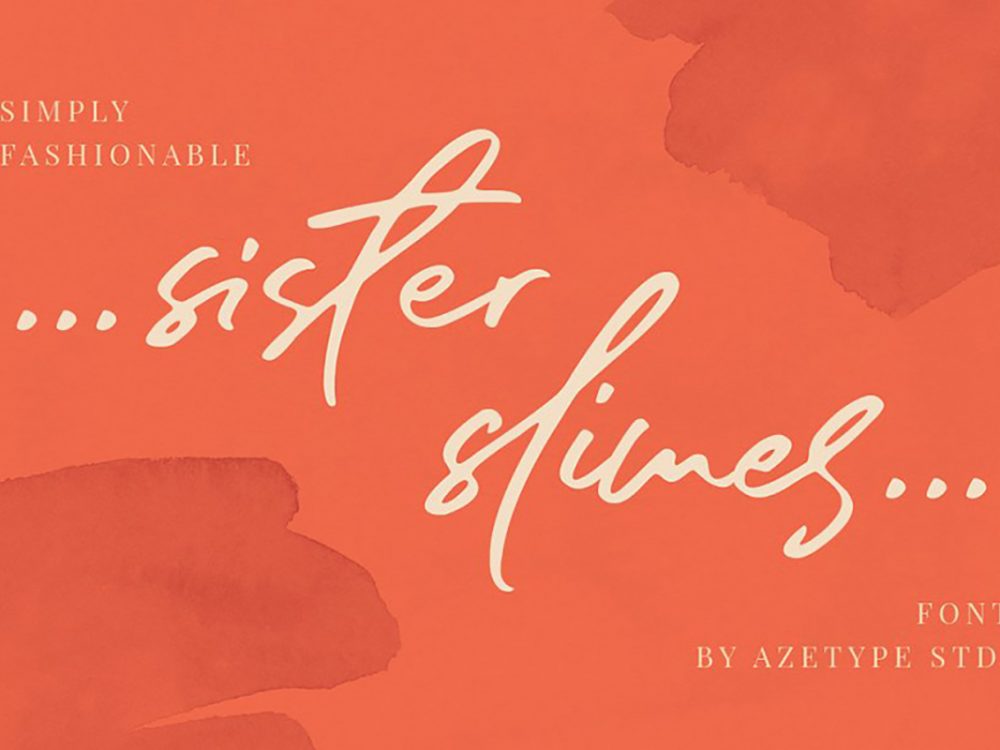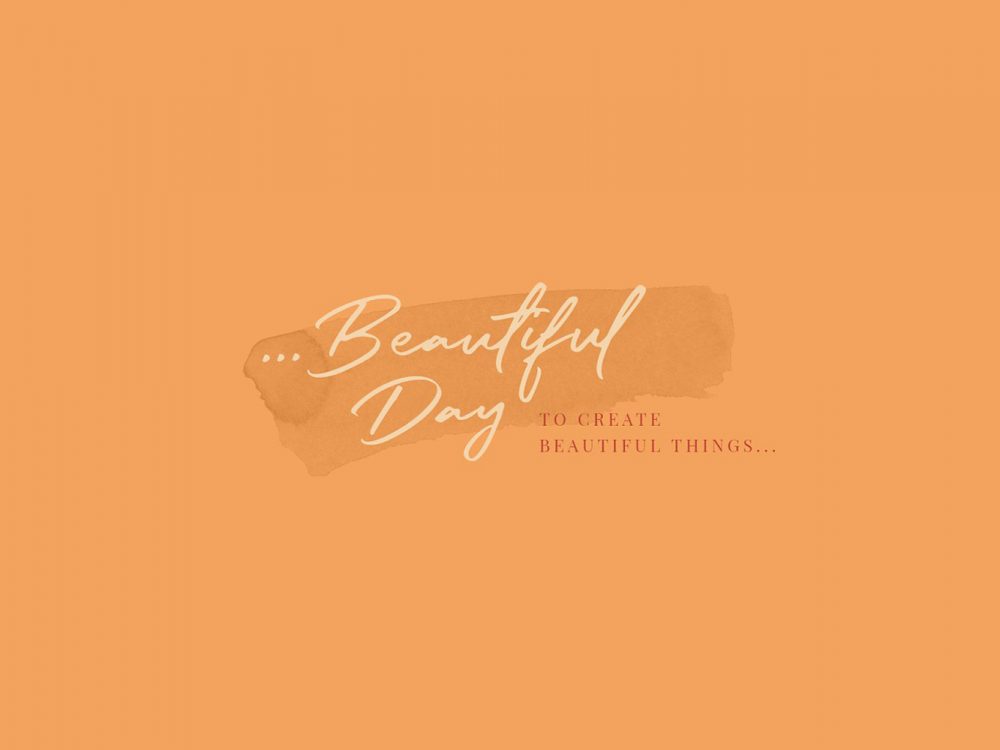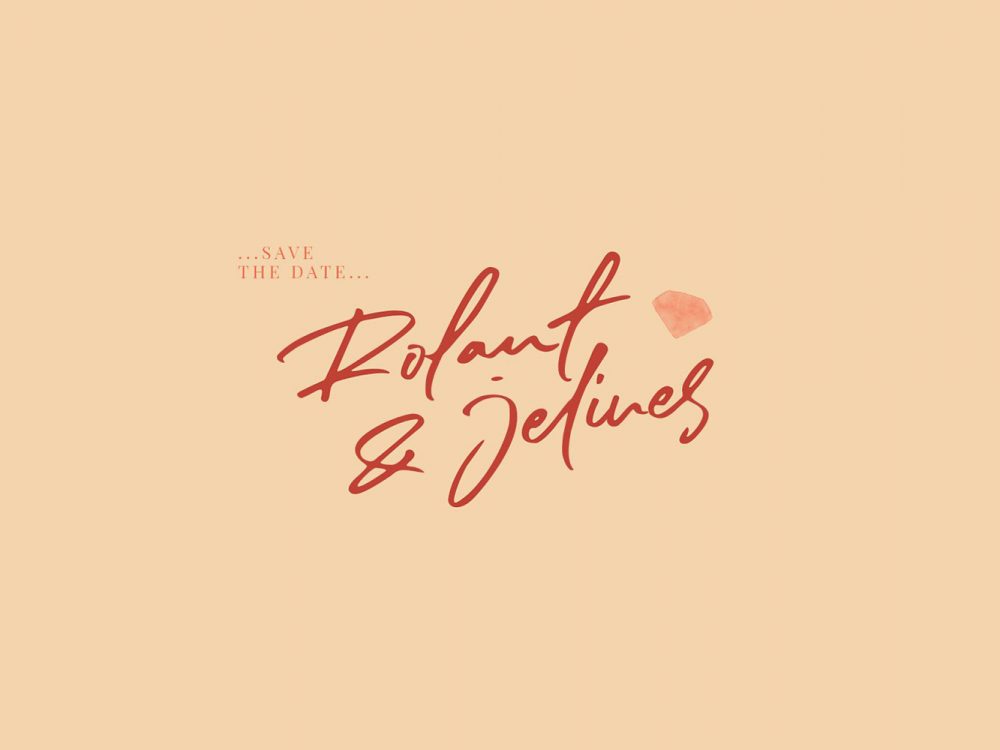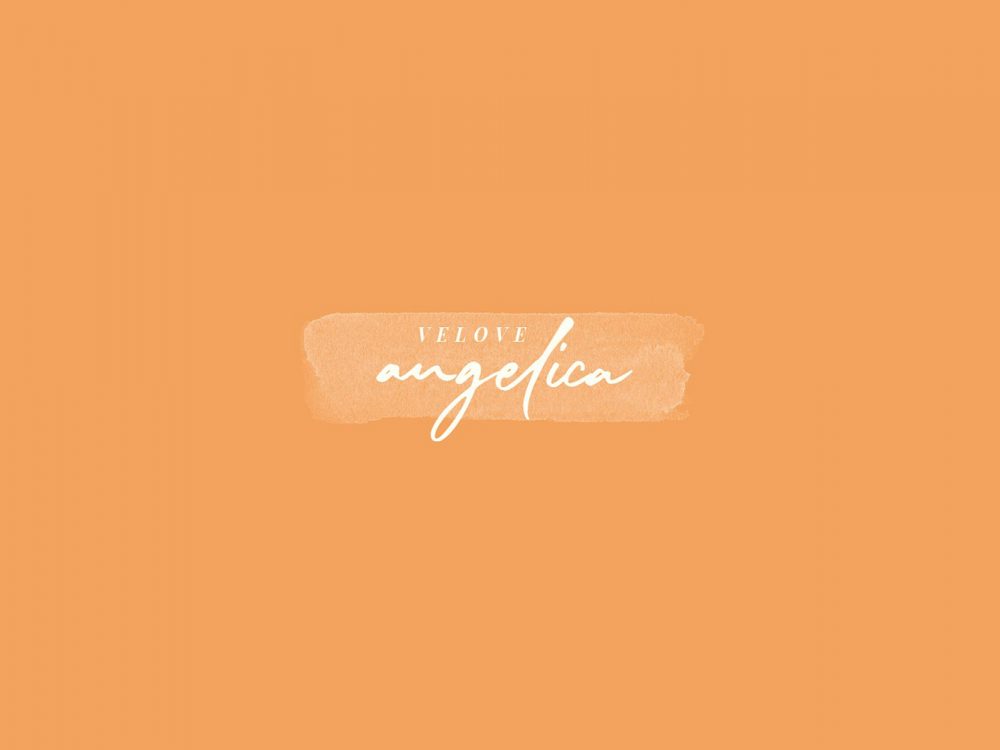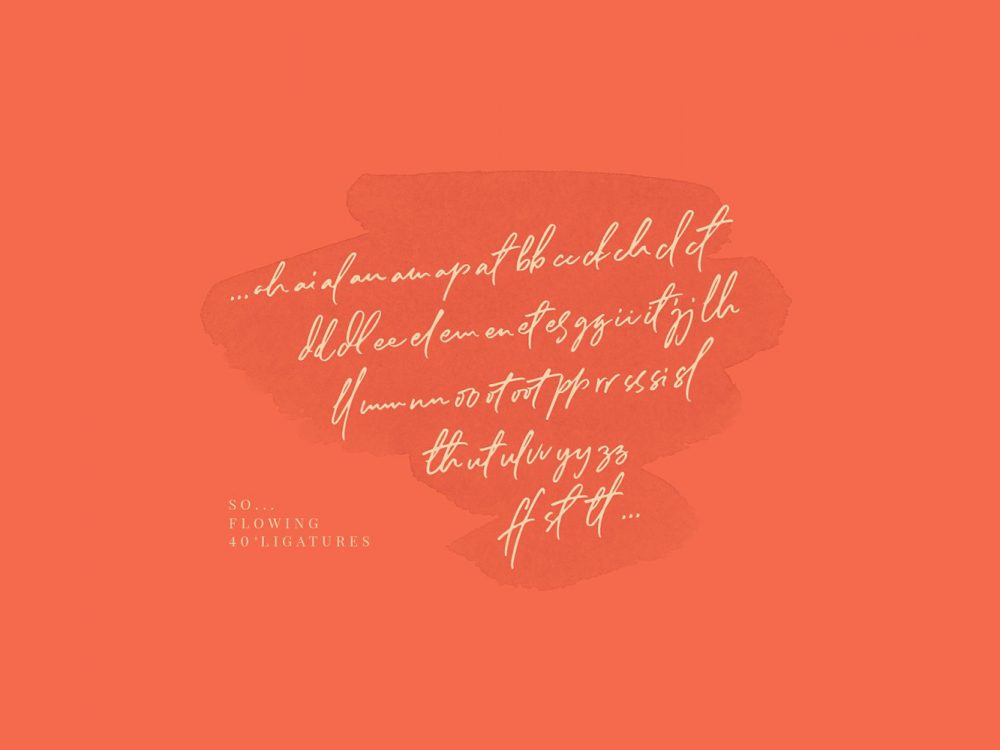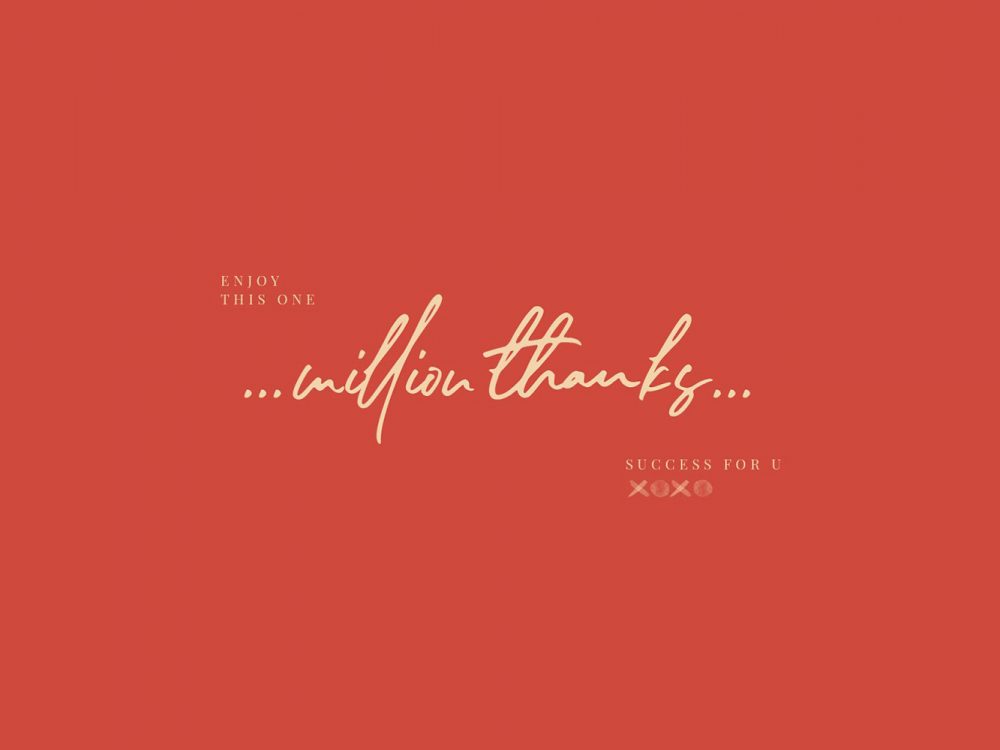
Sister Slimes Script Font
Sister Slimes Script Font is an interesting modern handwritten font that features an elegant style and will help you create memorable design projects in different directions. Use this font to create posters, wedding invitations, cards, branding, flyers, prints, and more. If you wish to access more features and use them for commercial work please buy the full version.